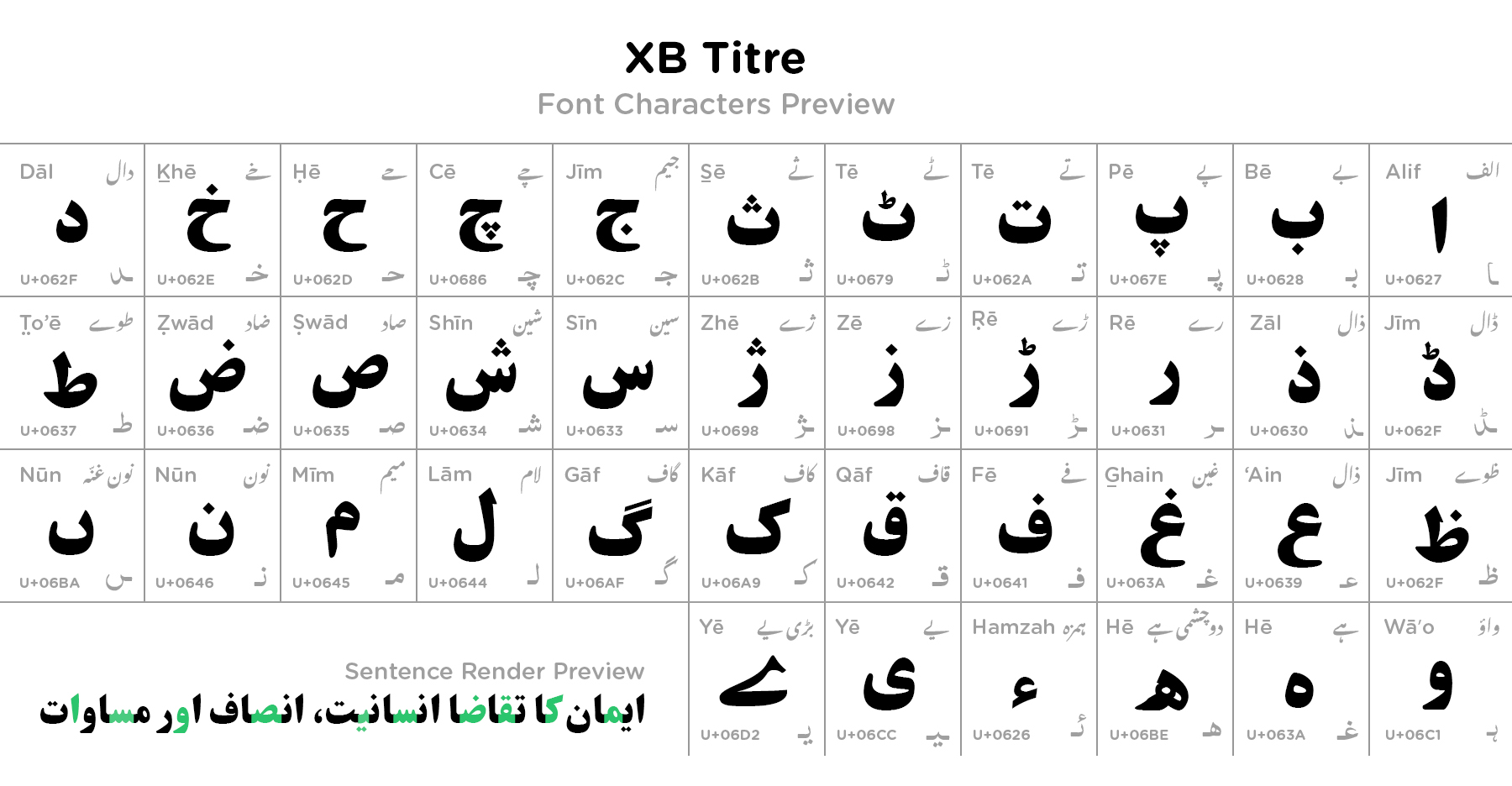
The XB Titre is a freestyle and filled Arabic font family designed by Behnam and licensed in 2007. Irmug's trademark XB Titre is released under the SIL Open Font License. This font was originally designed for Mac OS X font technology and has been completely rebuilt and expanded to support Arabic, Persian, Uyghur, Urdu, Dari, Kurdish, Pashto, old Turkish (Ottoman), new Turkish (Roman)and Uzbek, using Microsoft Open Type (OT) technology for TrueType format and Apple Advanced Typography (AAT) technology. The font has a large character set of 980 letters and special symbols with 869 glyphs and support with Arabic, Latin, and Greek. Moreover, it comes in different styles, including: